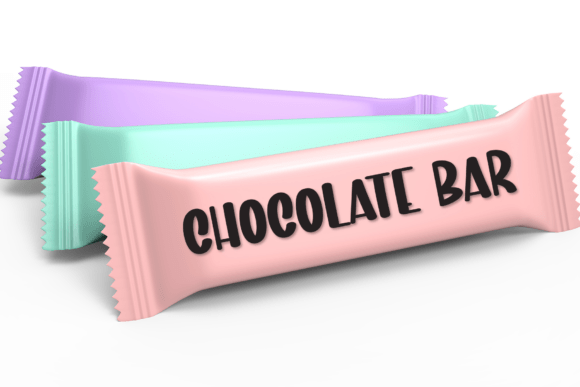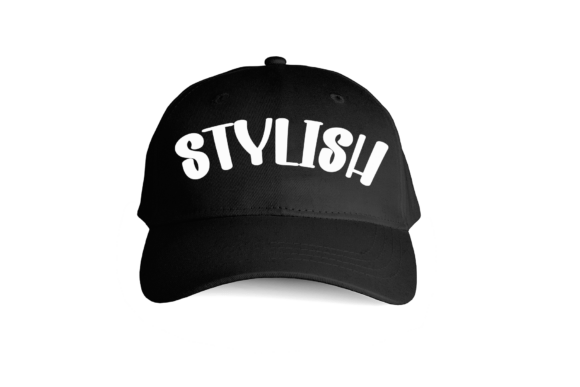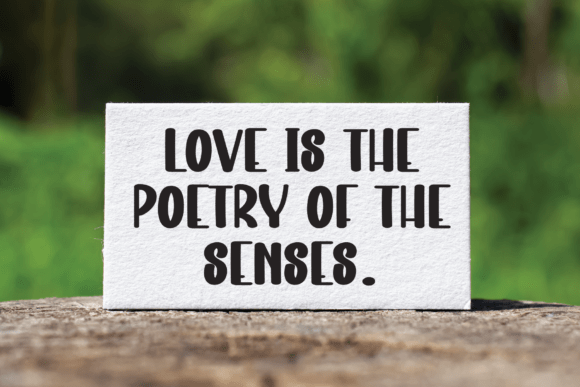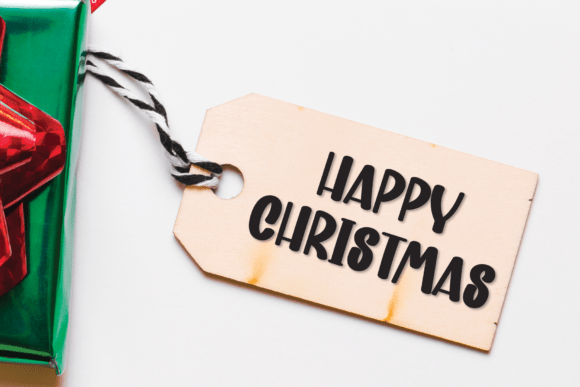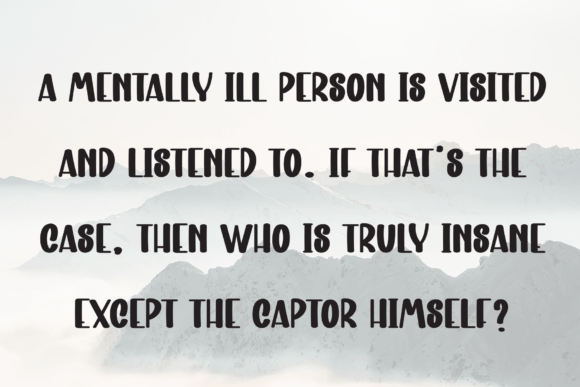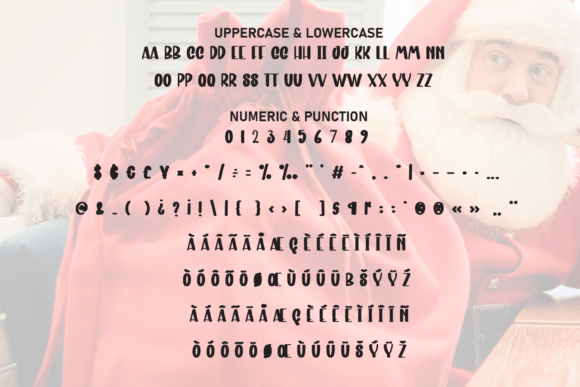
Introduction to Santa Daily Font
Do you remember the moment when a single design element completely transforms your creative project? For designers, it’s a feeling that’s hard to put into words, but it’s the spark that sets our imagination ablaze. As we dive into the world of typography, we’re constantly on the lookout for that perfect font that elevates our work to the next level. This is where Santa Daily Font comes in – a game-changing design resource that’s set to revolutionize the way you approach your creative projects.
Santa Daily Font is more than just a font – it’s an experience. With its latest style letters, you’ll be able to create stunning wall displays, wedding invitations, and social media post logos that exude taste and sophistication. Whether you’re a seasoned designer or just starting out, this font is sure to be a valuable addition to your design arsenal.
Santa Daily Font
- High-quality, unique font design for creative projects and designs
- Perfect for use in logos, posters, and other visual design elements
- Unique, hand-drawn style that adds a touch of holiday magic to any design
Honest Review: Santa Daily Font
As a designer, I’m always on the lookout for high-quality design resources to elevate my creative projects. The Santa Daily Font caught my eye with its festive vibe and free download option. I decided to give it a try and see how it would work in a design setting.
What works well: ✨ The font is well-designed and has a clear, readable structure. The transparent background makes it easy to layer and manipulate in various design applications. I was also impressed by the variety of font styles and weights available, which adds to its versatility.
- High-quality font with a clear, readable structure
- Transparent background for easy layering and manipulation
- Variety of font styles and weights available
Limitations: ⚠️ While the font is well-designed, I found it to be a bit limited in terms of customization options. Additionally, some of the font styles may not be suitable for all design projects, particularly those requiring a more formal or professional tone.
Overall, I was pleasantly surprised by the Santa Daily Font. Its free download option, high-quality design, and transparent background make it a valuable resource for designers. However, its limitations may make it less suitable for more complex design projects. Still, it’s an excellent choice for those looking for a fun and festive font to add some holiday cheer to their designs.
Tips for Getting the Most Out of Santa Daily Font
Use the Santa Daily Font in conjunction with other high-quality design resources to create a cohesive and professional-looking design. Experiment with different font sizes, colors, and styles to add depth and interest to your design. You can also use the font in a creative project, such as a holiday card or a social media campaign.
Common Use Cases for Santa Daily Font
The Santa Daily Font is a versatile design resource that can be used in a variety of creative projects, including holiday cards, social media posts, and flyers. It is also a great resource for designers who need a high-quality, free download font with a transparent background.